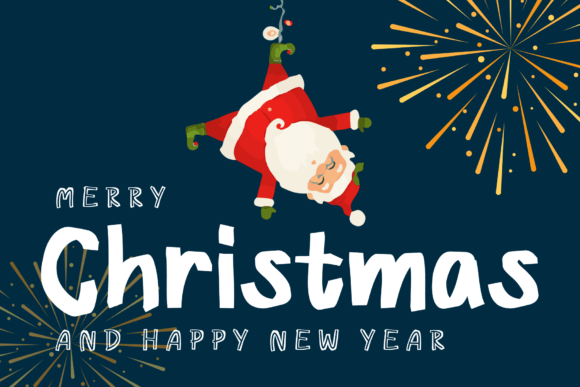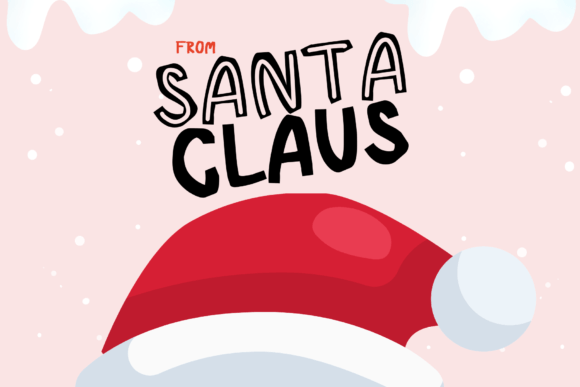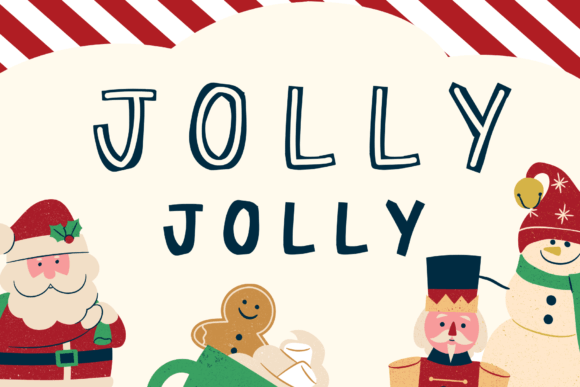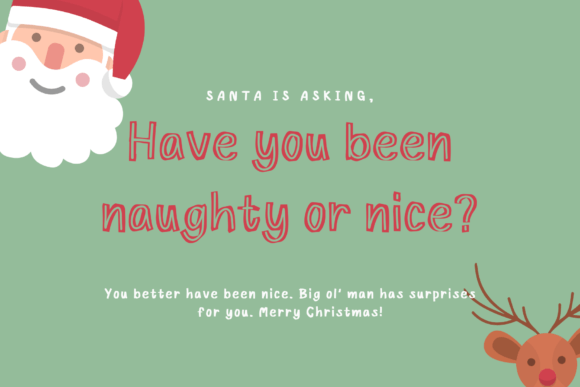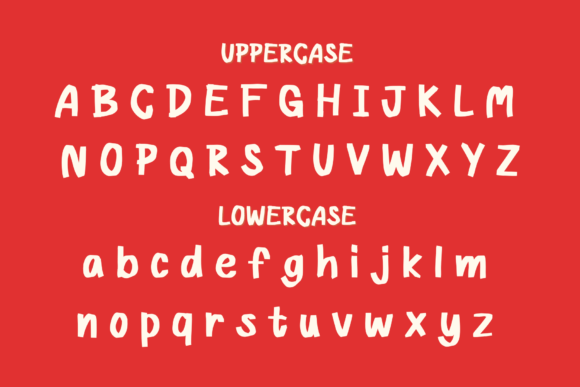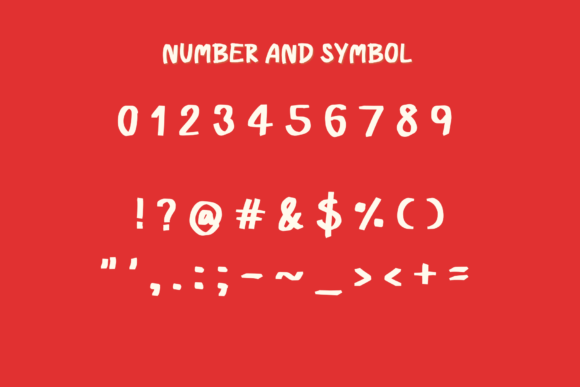
Dear Santa Font: The Ultimate Holiday Font for Designers and Crafters
Are you looking for a font that captures the essence of the holiday season? Look no further than the Dear Santa font. This adorable font is perfect for designers and crafters who want to add a touch of festive charm to their projects. In this article, we’ll dive into the delightful design elements of Dear Santa font and explore its uses, features, and benefits.
A Font that Exudes Adorable Charm
Dear Santa font is a font that exudes adorable charm and is filled with delightful design elements. Its vibrant and irresistibly cute atmosphere is characterized by its simplicity and cuteness that is hard to resist. The font’s design is inspired by the magic of the holiday season, making it perfect for creating festive and fun projects.
Design Elements and Features
Dear Santa font boasts a range of design elements that make it stand out from other fonts. Its letters are carefully crafted to resemble handwritten text, with subtle imperfections and variations that give it a personal touch. The font also features:
- Cute and playful letterforms: Each letter is designed to be visually appealing, with rounded edges and a sweet, childlike quality.
- Delightful swashes and flourishes: The font includes a range of swashes and flourishes that add a touch of elegance and sophistication to your designs.
- Multilingual support: Dear Santa font supports multiple languages, making it a great choice for designers and crafters who work with international clients or want to create projects for a global audience.
Uses and Applications
Dear Santa font is a versatile font that can be used in a variety of projects, including:
- Holiday cards and invitations: Create festive and fun holiday cards and invitations that are sure to delight your friends and family.
- Crafting and DIY projects: Add a touch of personality to your crafting and DIY projects, such as handmade gifts, decorations, and signs.
- Digital graphics and illustrations: Use Dear Santa font to add text to your digital graphics and illustrations, such as holiday-themed social media graphics and blog posts.
- Branding and packaging: Use the font to create festive and fun branding and packaging for your business or products.
Dear Santa font offers a range of benefits for designers and crafters, including:
- High-quality design: The font is designed to high standards, ensuring that your projects look professional and polished.
In conclusion, Dear Santa font is a delightful font that is perfect for designers and crafters who want to add a touch of festive charm to their projects. With its adorable design elements, versatility, and ease of use, it’s a great choice for anyone looking to create fun and festive projects for the holiday season. So why not give Dear Santa font a try and see how it can add a touch of magic to your designs?